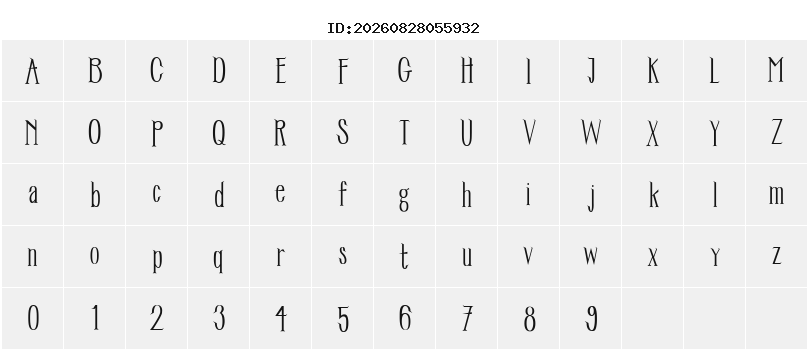
• Font Name: TreeFTR
About TreeFTR.ttf
TreeFTR.ttf is a modern, elegant sans-serif font designed for ultimate readability and visual harmony. Perfect for branding, headlines, web design, and print materials.